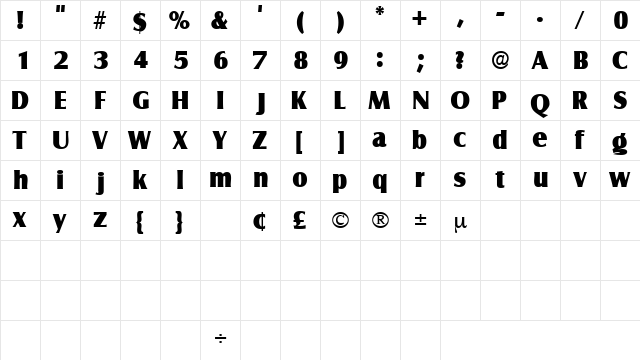
NautoDisplaySSK Regular
Design Context for NautoDisplaySSK Typeface
NautoDisplaySSK is built around its visual character rather than neutral utility — its distinctive forms are designed to make an impression at display sizes.
Font Pairing: Pair with a clean neutral sans-serif for body copy to let NautoDisplaySSK's character lead without overwhelming the composition.
Pro Tip: Treat NautoDisplaySSK as the centrepiece of your typographic hierarchy. One strong heading set in a decorative face can carry an entire layout.